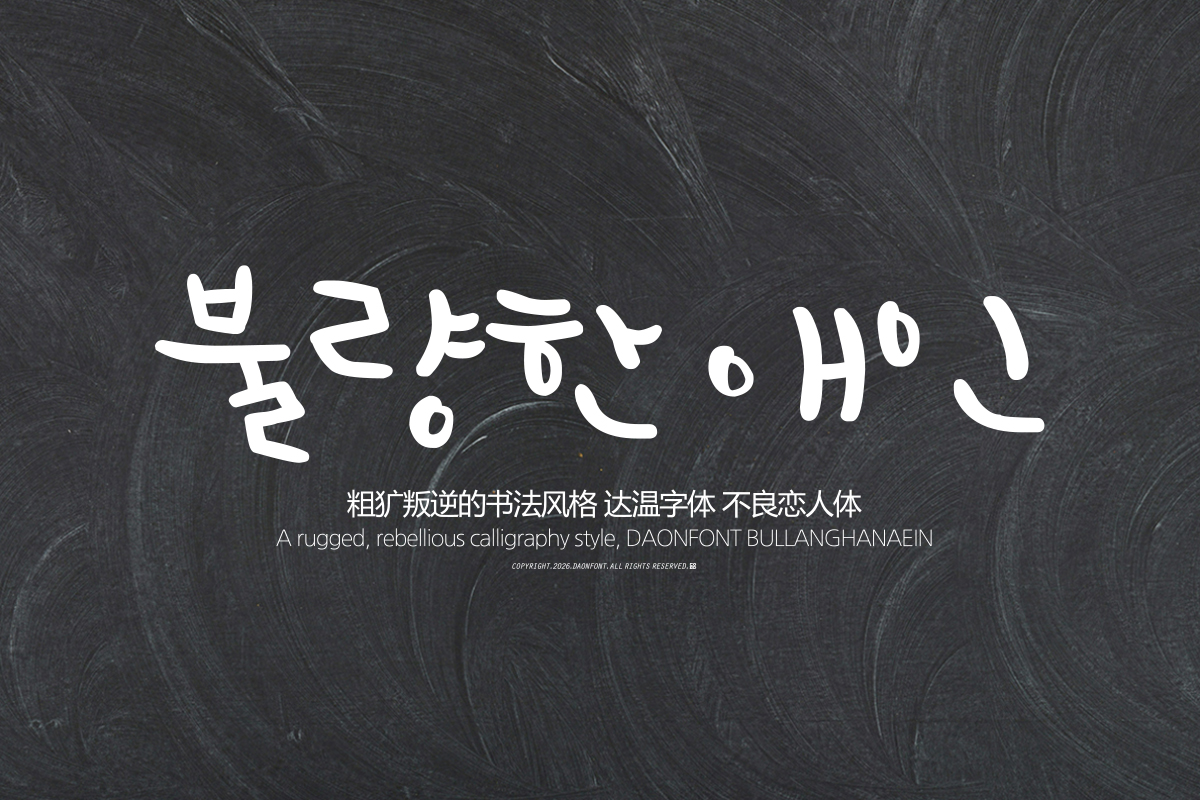
DAON POOLOVER(M)
DaonFont 'POOLOVER' is a penmanship-style font that stands out with its free penmanship sensibility, appearing as if it were written down without restraint. The strokes of the characters naturally waver and bend rather than being uniformly arranged, and the varying heights and slants of each character create a lively rhythm.